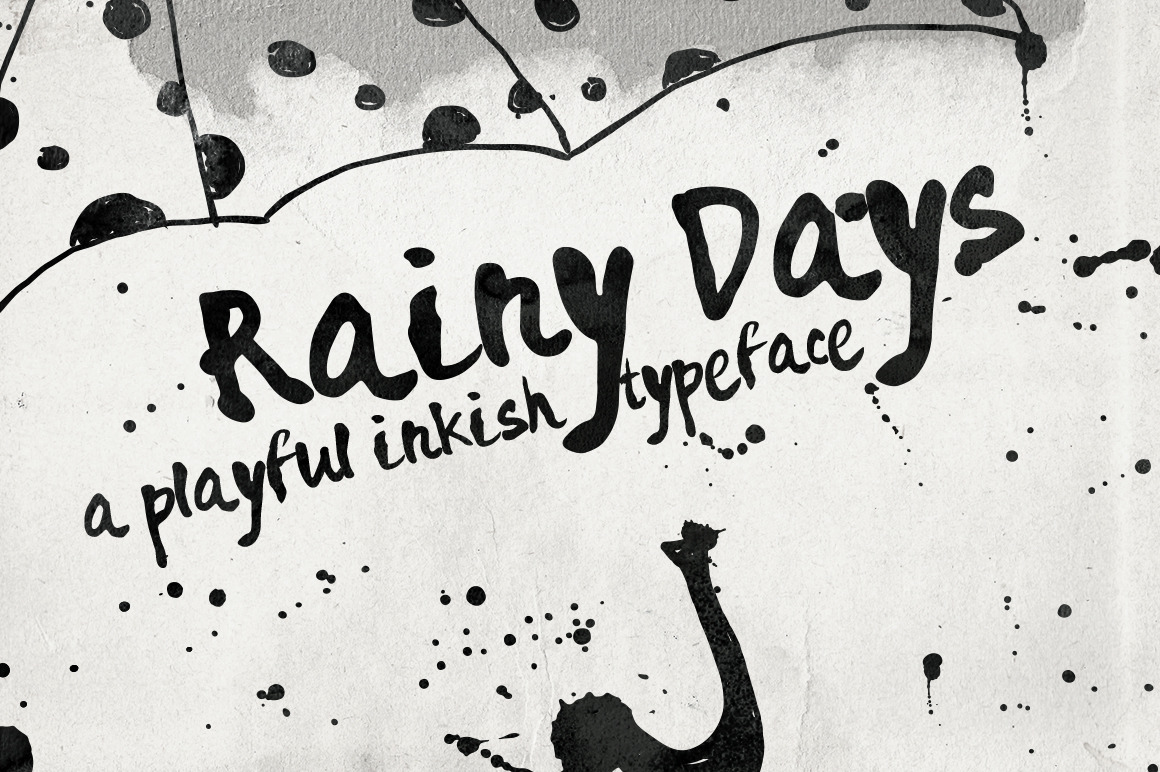
Rainy Days - a Playful typeface
Rainy Days - playful inkish typeface
Rainy Days - a playful inkish typeface. This type was made by hand with black indian ink. I also added an ink drops and splashes to add more hand painted look and feel.